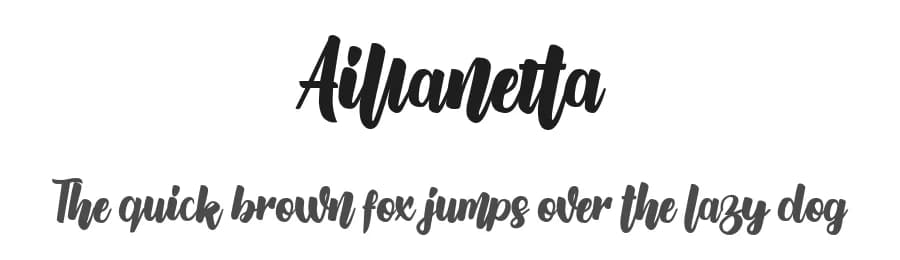
About Aillanetta Font
About Font "Aillanetta"
Aillanetta Specifications
| Designer | Arie Iskandar |
Aillanetta ships with 3 OpenType features you can switch on in apps that support them (Illustrator, InDesign, Affinity, Figma, CSS font-feature-settings).
Aillanetta supports 209 languages.
Aillanetta Font is a script font that shines as a display or heading face. Pair it with a clean sans-serif or serif font for body text β the contrast creates a clear hierarchy while the two styles stay balanced and easy to read.
Aillanetta Font